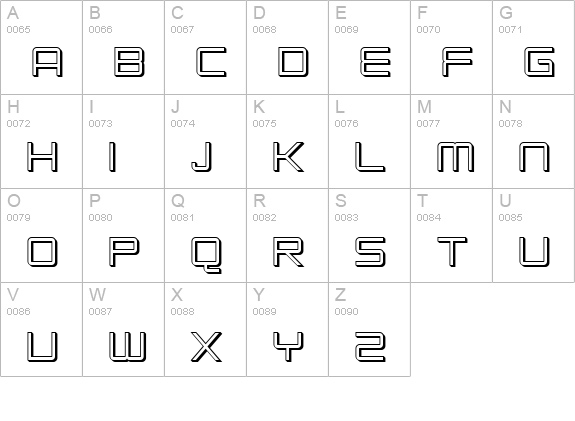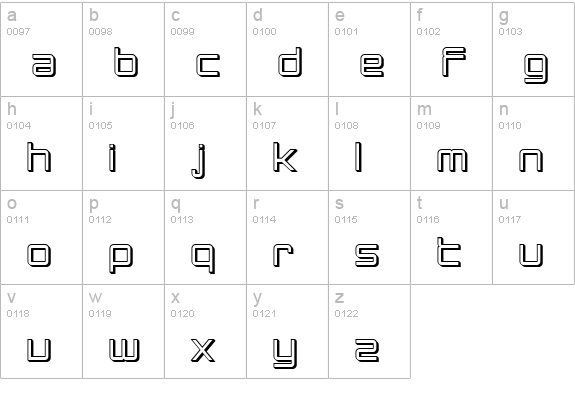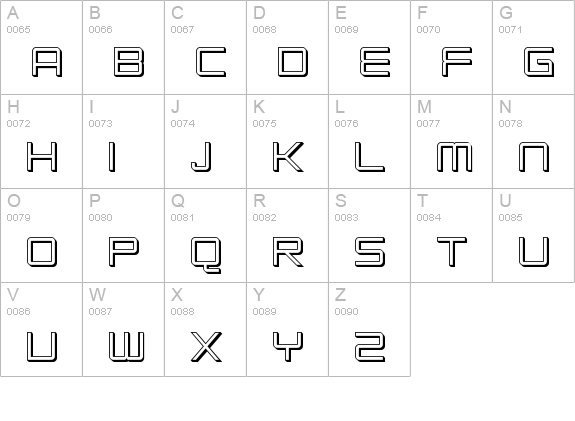
SF Chromium 24 Font Details
Introducing SF Chromium 24, a stunningly versatile font that seamlessly blends modernity with a touch of sophistication. This magnificent typeface boasts a sleek and streamlined design that captivates the eye and effortlessly enhances any project it graces. SF Chromium 24 is the epitome of elegance, making it the perfect choice for a wide range of creative ventures. With its clean lines and contemporary aesthetic, SF Chromium 24 exudes a sense of professionalism and refinement. Its carefully crafted curves and precise letterforms create a harmonious balance that is pleasing to the viewer, ensuring a memorable visual experience. Whether used in headlines, logos, or body text, this font commands attention and leaves a lasting impression. What sets SF Chromium 24 apart is not only its exceptional design but also its accessibility. This remarkable font is freely available to download at FontsMarket.com, making it an ideal choice for designers, artists, and anyone in need of a high-quality typeface without breaking the bank. Embracing the philosophy of inclusivity, SF Chromium 24 allows individuals from all walks of life to access its beauty and unleash their creativity upon the world. As you delve deeper into the world of SF Chromium 24, you will discover a vast array of weights and styles to suit your every need. From thin and delicate variations to bold and commanding options, this font offers a spectrum of possibilities, allowing you to tailor your designs to perfection. Whether you're aiming for a minimalist look or a more robust aesthetic, SF Chromium 24 has got you covered. Embrace the power of SF Chromium 24 and elevate your projects to new heights. With its impeccable design, versatility, and the freedom to download it for free at FontsMarket.com, this font opens up a world of possibilities for your creative endeavors. Let SF Chromium 24 be your artistic companion, and watch as your designs come to life with unparalleled elegance and style.